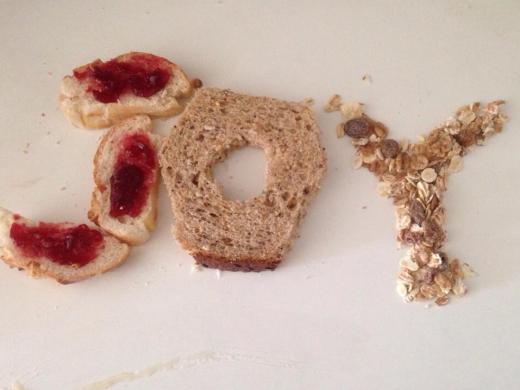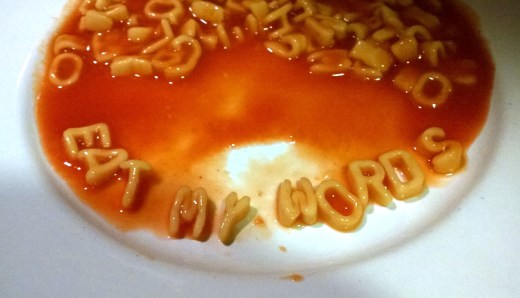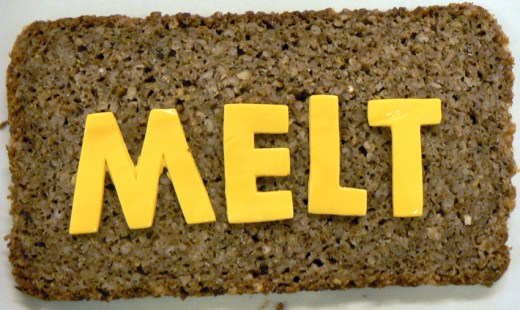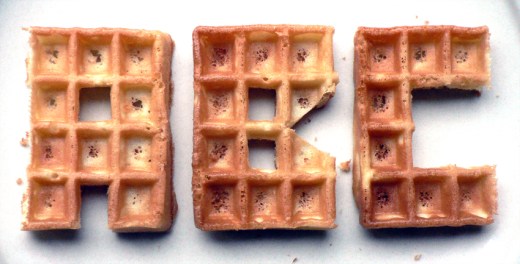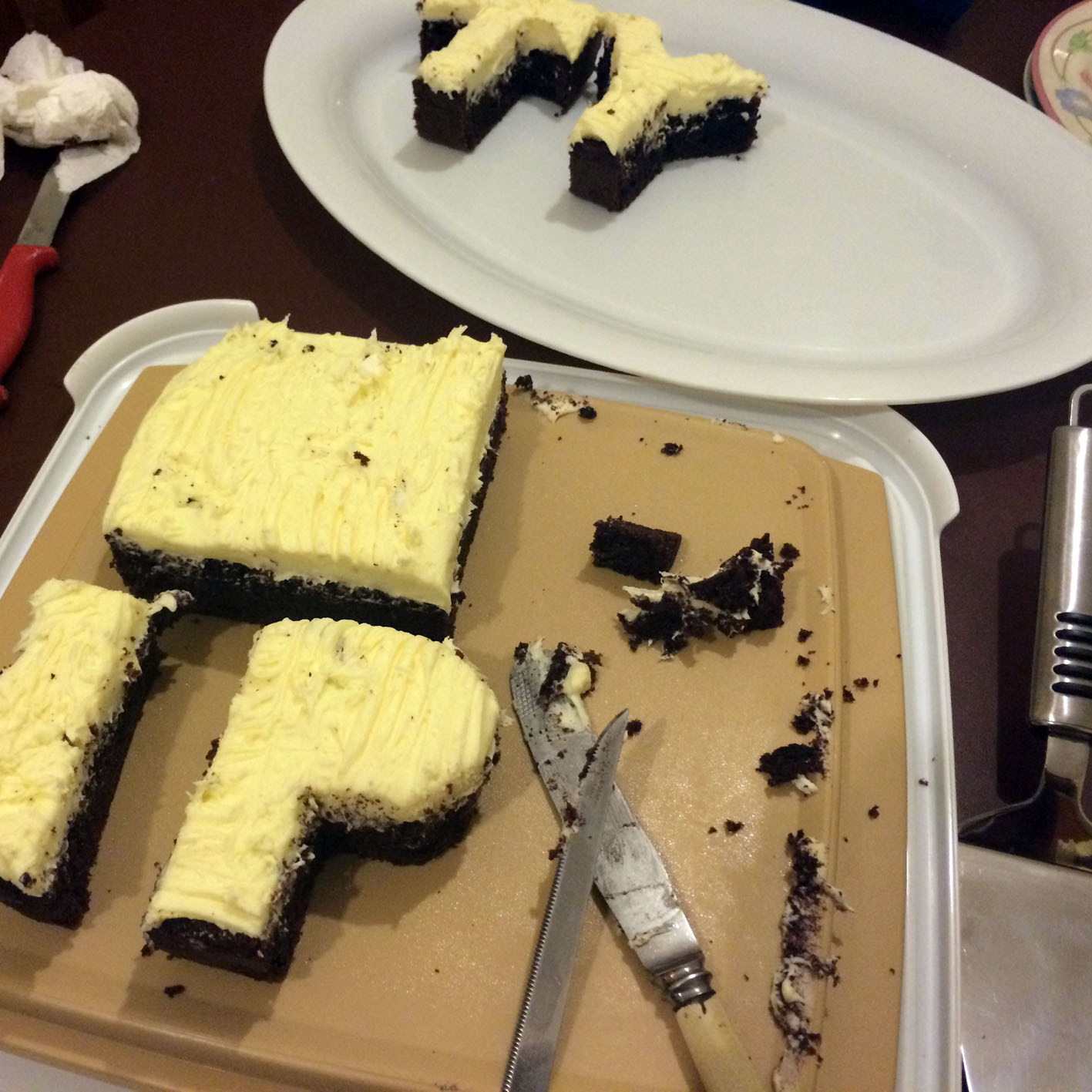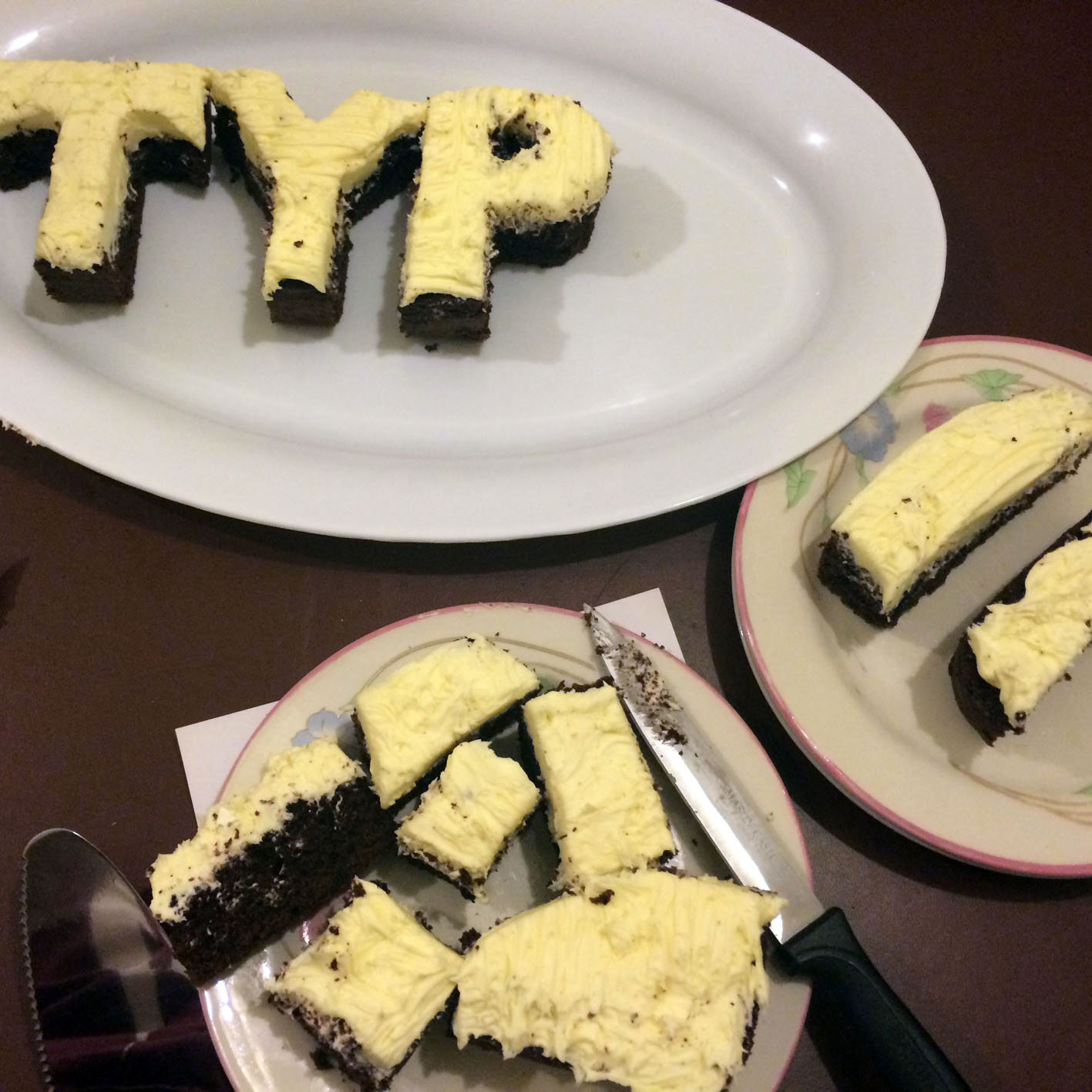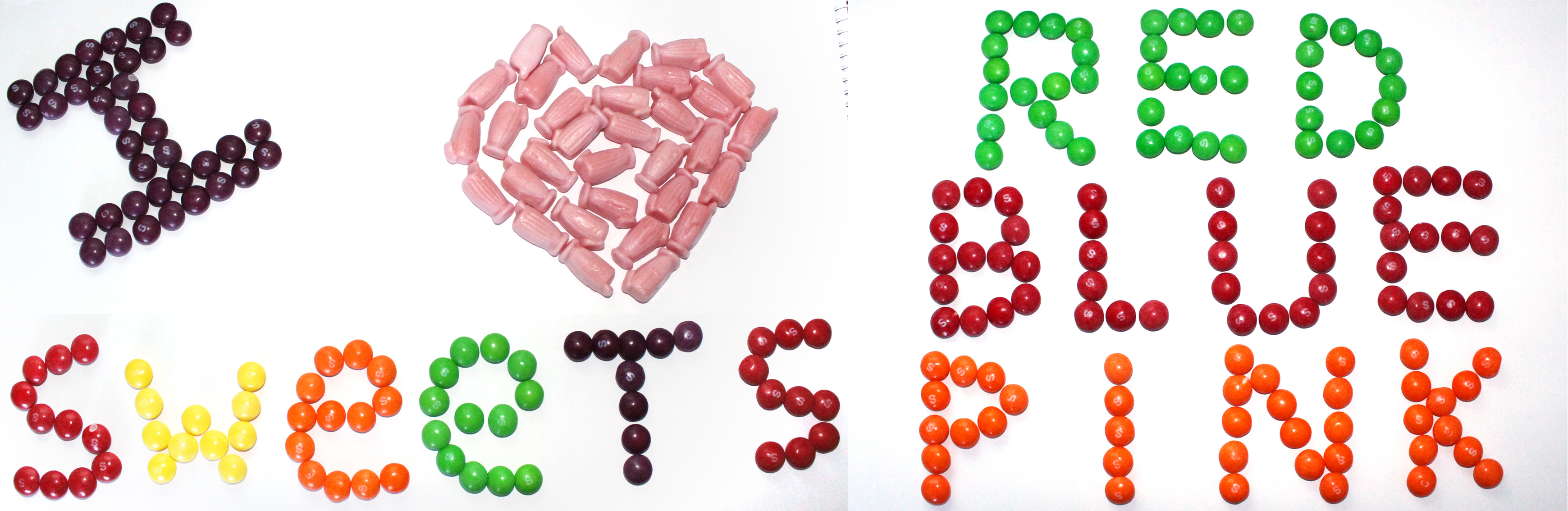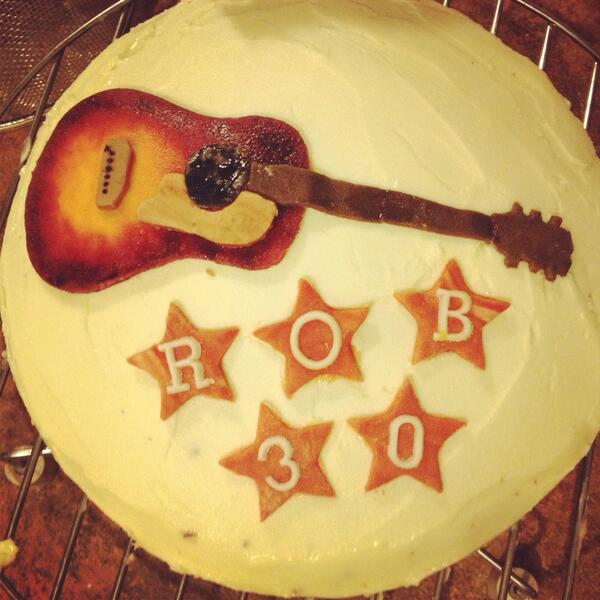
We celebrated Type Tasting’s first birthday with a day of edible type on Friday 14th February. Here’s a selection of the gastronomic typography and lettering created to mark the occasion.
Above: Nathan Dye’s chocolate TYPE cake, Helen Rawlinson’s peas thawing to the occasion, Sarah Hyndman’s edible rye bread Blackletter type “delicious with hummus” and Julie Muaro’s JOY in Breakfast Light, Regular & Extra Jam.
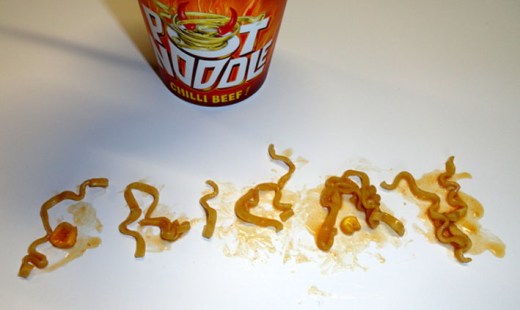
Simon Gomes, Programme Leader / BA (Hons) Graphic Design at Doncaster College and University Centre, created FRIDAY in chilli beef flavour.
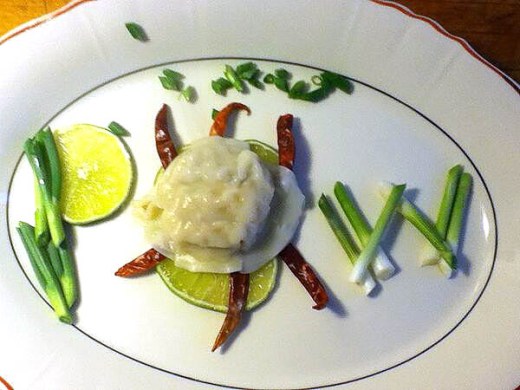
By contrast Stephen Boss of Emboss Fonts created healthy comic book lettering.
Andrew Campbell found it a “great excuse to buy sweets”.
Christine Binns distracted her husband (who was cooking crab linguine to celebrate their first Valentine’s Day since getting married) for long enough to turn it into a word.
Andreja Brulc sent Type Tasting birthday greetings made from fruits and spices from Mexico.
Drina Murphy shared her love of pizza
Magdalena Gilewicz’s healthy TYPE, and Kriti Monga sent her take on petrol prices, Delhi’s brutal summer and watermelons.
Stephen Boss used “a quarter of a cup of Wine in my dish, the rest of the bottle evaporated :)” to create his #wayfinding on his chicken pie.
Birthday cake by @amyswapp and Sarah Hyndman’s prawn alphabet, sans shells.
Nathan Dye’s TYPE cake recipe:
Betty Crocker chocolate cake mix, 1/4 cup of oil, 2 Eggs, 1 medium sized cup of crushed oreos poured into the cake mixture, vanilla frosting to put on top when baked, grate oreo over the top of frosting to finish. Oven bake at 350 degrees •F.
Also created to celebrate #EdibleTypeFriday:
Alice Mazzilli’s Soy Sauce & Chilli Calligraphy
Karina Monger’s ‘Happy Valentype Day’
Andreja Brulc’s ‘Love & Kisses’ eaten in 5 languages